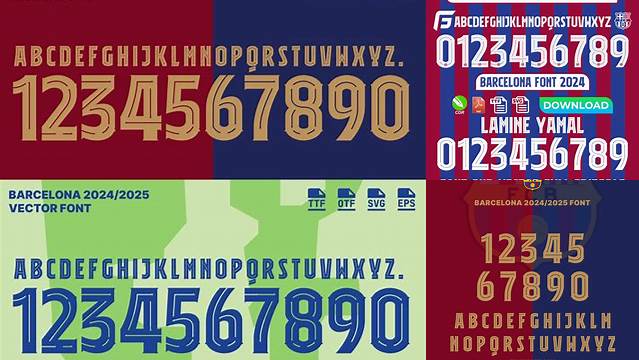
Hey design enthusiasts! Are you ready to add a touch of Barcelona's vibrant spirit to your projects? If you're looking for the Barcelona Font 2026/23 free download, you've come to the right place! This article will guide you through everything you need to know, from understanding the font's unique characteristics to finding safe and reliable download sources. Get ready to elevate your designs with this iconic typeface.
Barcelona Font 2026/23: A Deep Dive
So, what exactly is the Barcelona Font 2026/23? Well, imagine a font that embodies the energy, creativity, and artistic flair of Barcelona. This font, likely inspired by the city's rich design heritage, offers a unique blend of modern aesthetics and timeless appeal. While specific details about the font may vary depending on the version (2026 or 23), it's safe to assume it boasts clean lines, a contemporary feel, and a readability that makes it perfect for various applications. Barcelona Font 2026/23 often features a range of weights and styles, allowing designers to create diverse and engaging layouts. Think about its versatility, it could be used in headlines, body text, branding, or even in creating captivating visuals. It will definitely make your designs pop. Barcelona Font 2026/23 is more than just a collection of letters; it is a statement. Its design reflects the city's ability to seamlessly blend tradition with innovation, and it's a great option if you are a creator. The right font can communicate a lot more than just words can. So, If you have the Barcelona Font 2026/23 on your list you're in good hands.
Unveiling the Design Aesthetics: What Makes Barcelona Font Special?
Let's take a closer look at what makes the Barcelona Font 2026/23 so special. Its design likely reflects the spirit of the city itself: a blend of modern and classic elements, with a touch of artistic flair. The specific details may vary between different versions, but you can expect clean lines, a legible structure, and a contemporary feel. These fonts often include multiple weights and styles, which make them extremely adaptable for many different design purposes. These characteristics allow designers to create a wide range of visual aesthetics. Consider the font's personality; it will be a great way to enhance your design. It could be utilized for headlines, body text, brand identities, or even creating visual masterpieces. The Barcelona Font 2026/23 is more than just a typeface; it's an expression of creativity. The ability to adapt traditional elements with the modern touches is a great way to grab the attention of your audiences. It helps to convey the message more effectively.